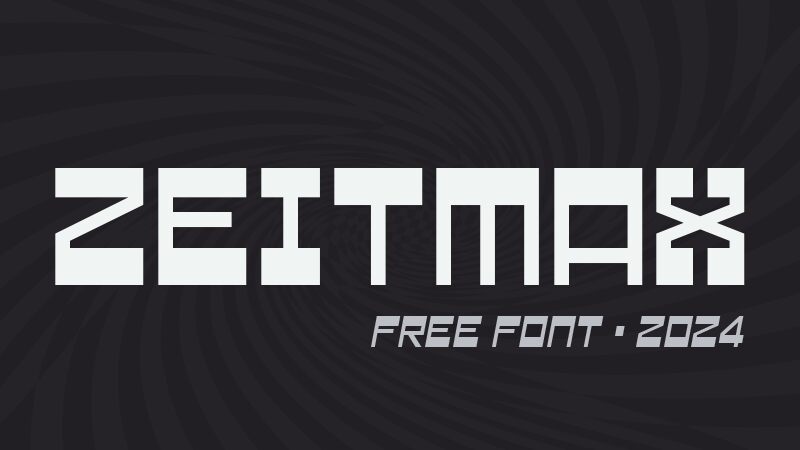
Zeitmax Italic
Zeitmax Italic font by GGBotNet is a techno display free font that presents an angular and futuristic style. With its geometric and edgy design, it offers a unique visual experience that combines energy with cutting-edge aesthetics. This font captures the viewer’s attention and delivers a confident modernistic vibe suitable for both digital and print projects.
Explore Zeitmax’s use in music covers, video games, board games, book covers, movie titles, posters and flyers, t-shirt prints, branding and packaging designs. From tools’ manufacturing brands to gaming consoles promotion banners – there are endless possibilities in which this typeface can transform your work!